Font Canva Formal
Wasting time scrolling through Canva for the most suitable fonts for your design? You’re not alone. As your great solution, this article will share the best font Canva formal to build up your creative design.
Canva is the best graphic design platform often used by creative enthusiasts to create exquisite designs in no time. So many font types are available in Canva that it becomes challenging to choose the best one. If you are in this situation, let’s review the Canva font selection below!
1. Montserrat
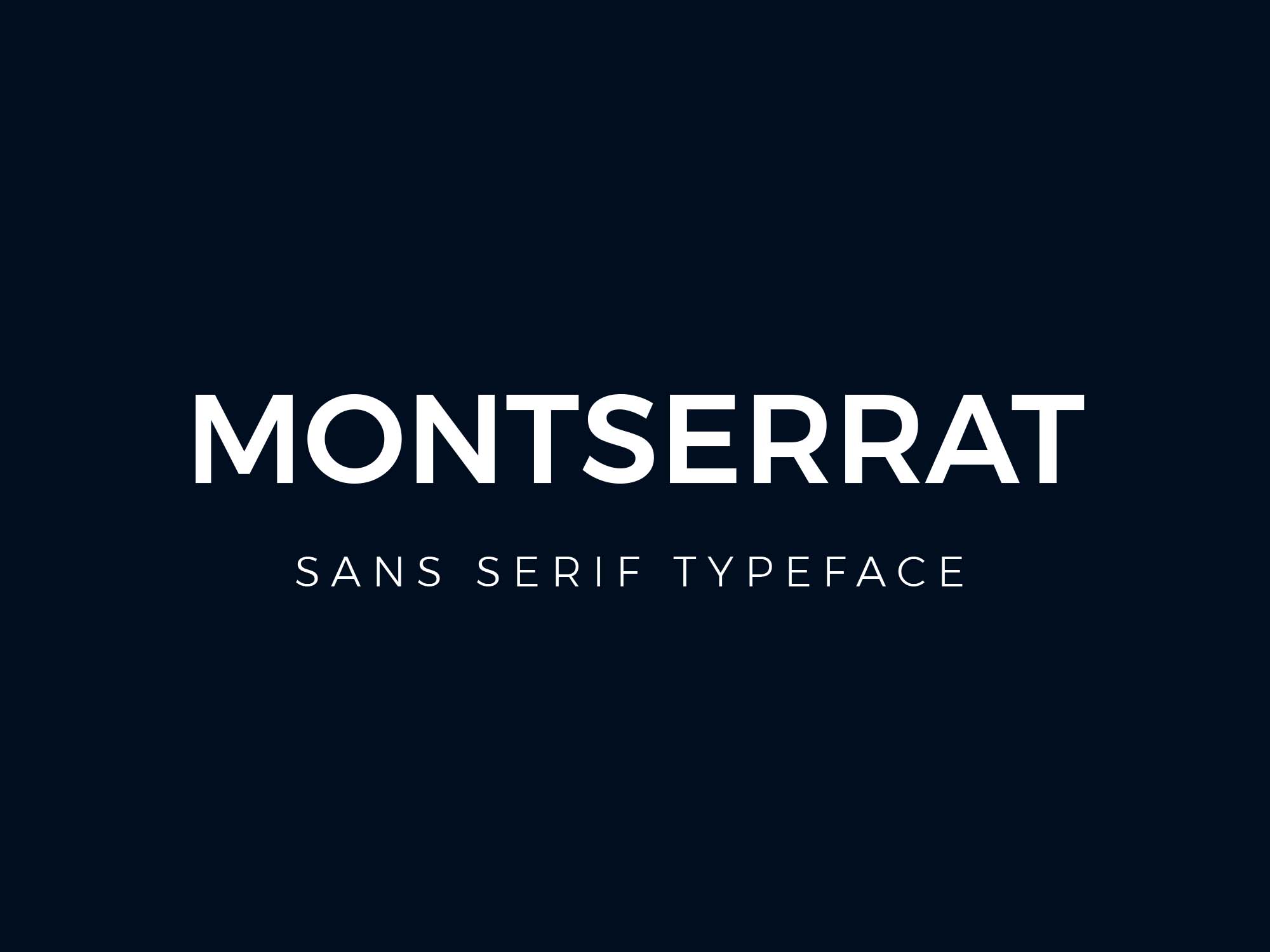
Let’s start with Montserrat. This classic typeface is the top choice to give your design a minimalist and elegant look. Its compact and slightly wide features make it look perfect as a header. Montserrat is a type of sans serif that is highly popular among web designers. So, you must try it!
2. Playfair Display
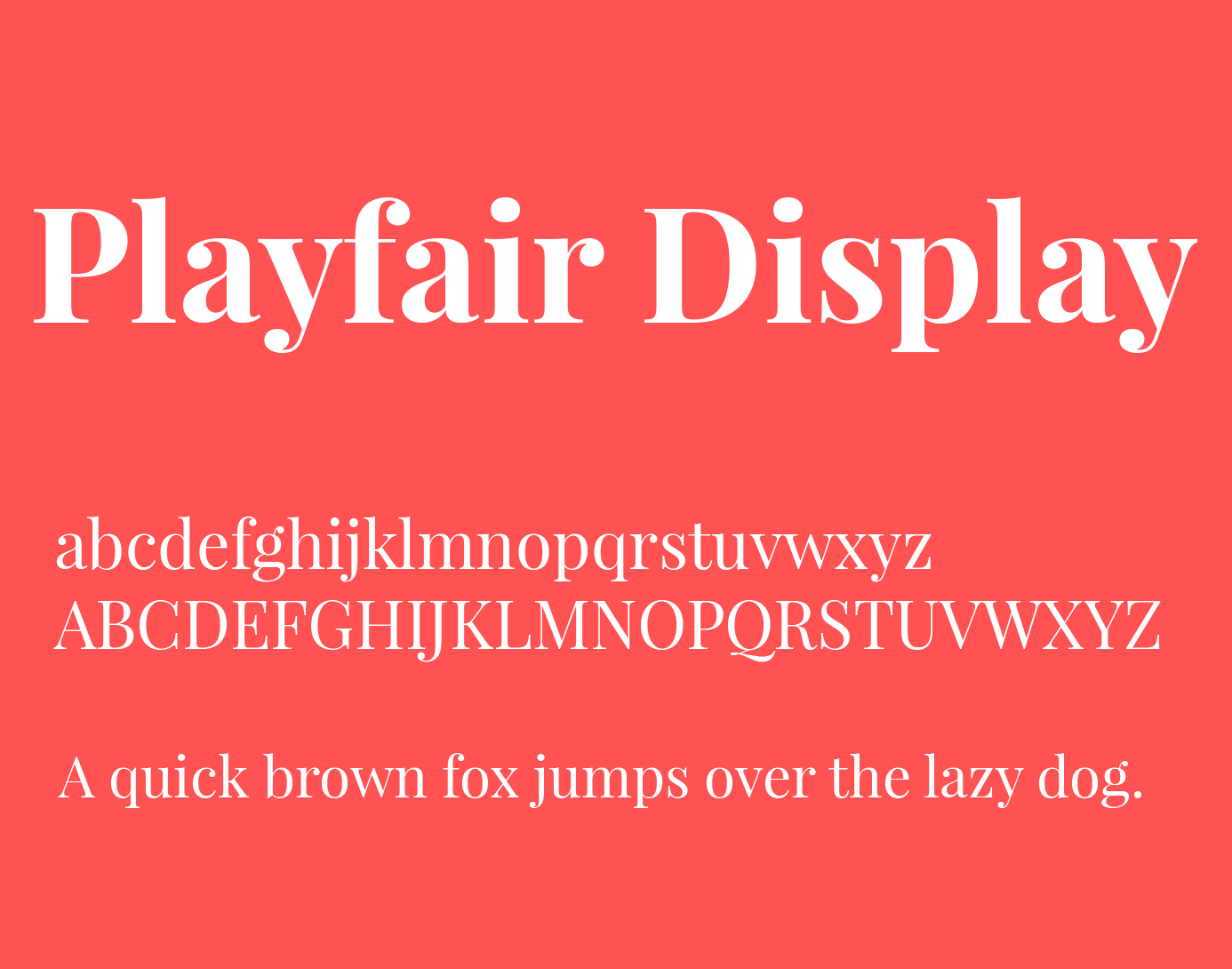
Another choice for font Canva formal you can use is Playfair Display. This classical typeface has a sense of modern and elegant touch. It comes in three weights and two styles, regular and bold. It will be great with other sans-serif fonts like Georgia, Montserrat, Buka Sans, and Robot.
3. Helvetica
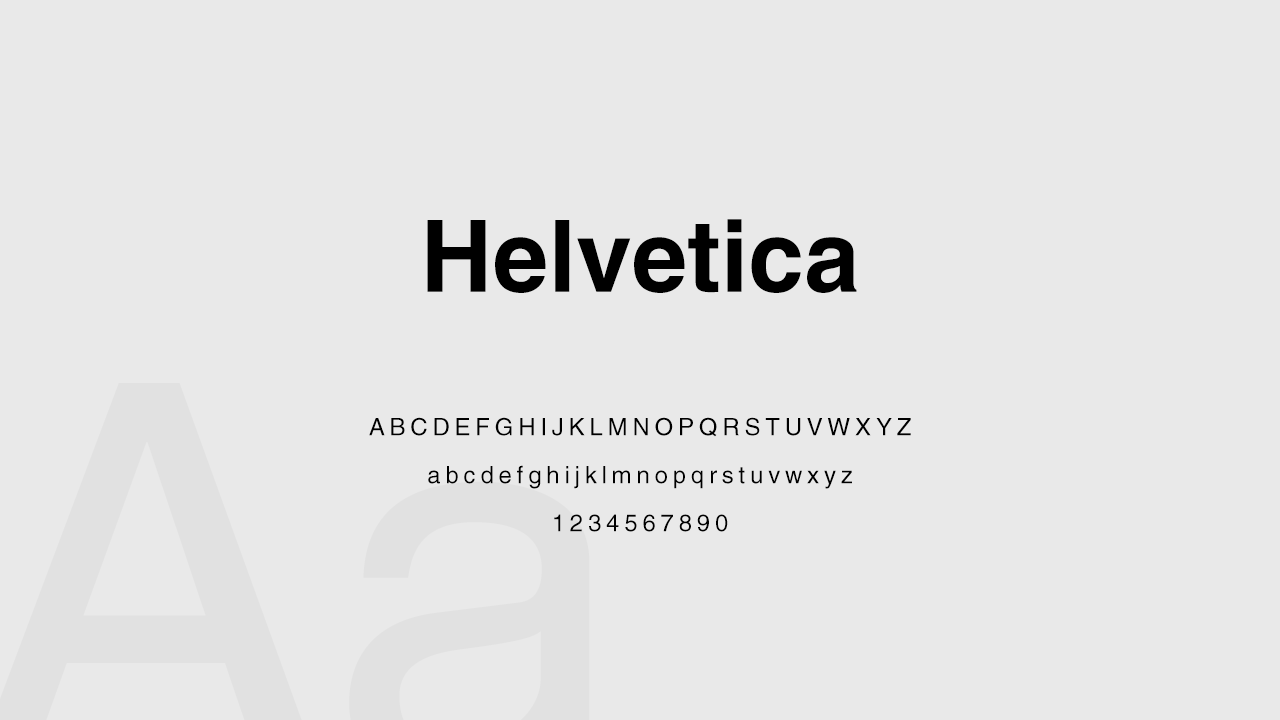
Thinking of giving a neutral look to your artwork? Helvetica could be the right choice for font Canva formal. This font is a sans-serif typeface.
It is an extremely clean font with a simple interface. No wonder designers highly favor this font. Some company logo branding uses this font, such as BMW, Microsoft, Motorola, Kawasaki, etc.
4. Josefin Sans
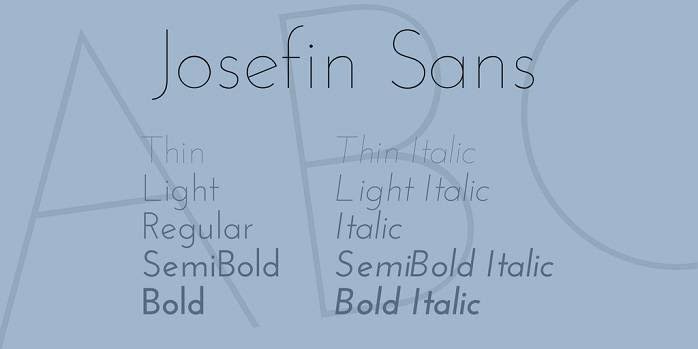
Spice up your design with Josefin Sans font. It’s a kind of vintage font that has distinctive typewriter-style elements. This font looks stunning as titling on posters or commercial ads.
5. Eczar
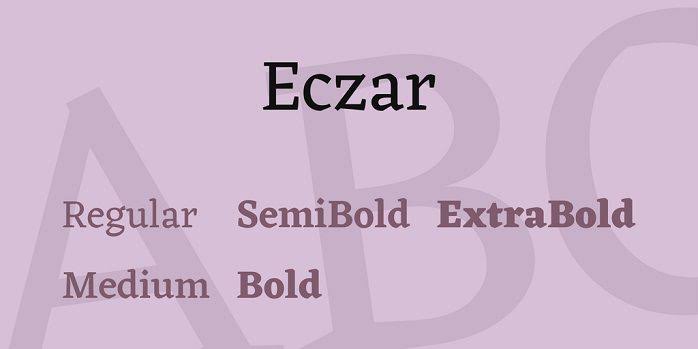
To create a design with a slightly edgier and more powerful, Eczar can help you out. This calligraphic typeface is an alternative for text that is charismatic and sharp at the same time. Use the extra bold to make engaging headlines for your art piece or the regular one for the body text.
6. Libre Baskerville
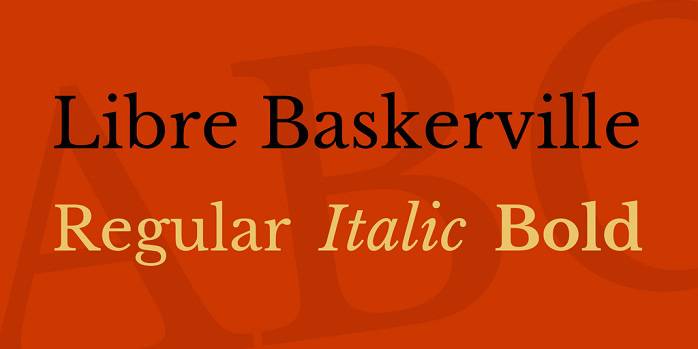
Libre Baskerville is an excellent option for a professional look. It has a decorative stroke at the end of the letter, adding elegant and beautiful personality to the text. Additionally, the wider structure is suitable for small letters.
7. Quicksand
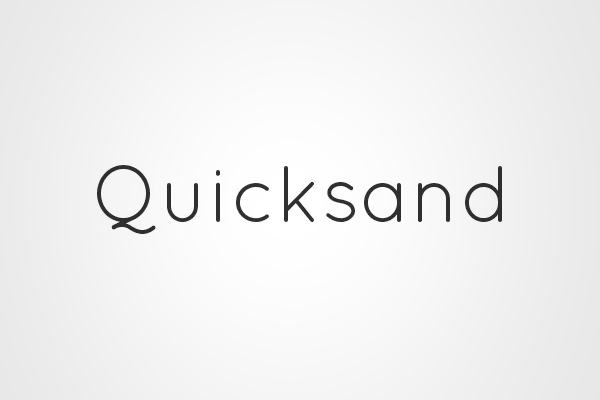
Again, the sans serif family is listed among the most popular font types in Canva. Yup, Quicksand has three weights with a sleek and minimalist style. This font is available in regular, light, and medium. It can inspire you to create a friendly appearance.
8. Roboto
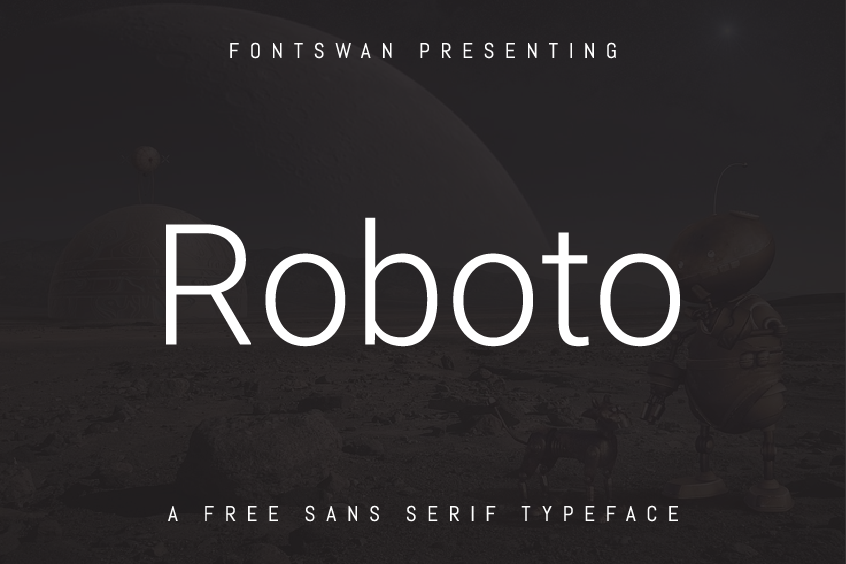
As you can see, Roboto has a geometric shape with a clean and sleek profile. This font features friendly and open curves for easy legibility. It’s suitable for body text and pairs well with serif typefaces. Several variants included regular, condensed, light, thin, slab regular, and slab thin.
9. Lovelo
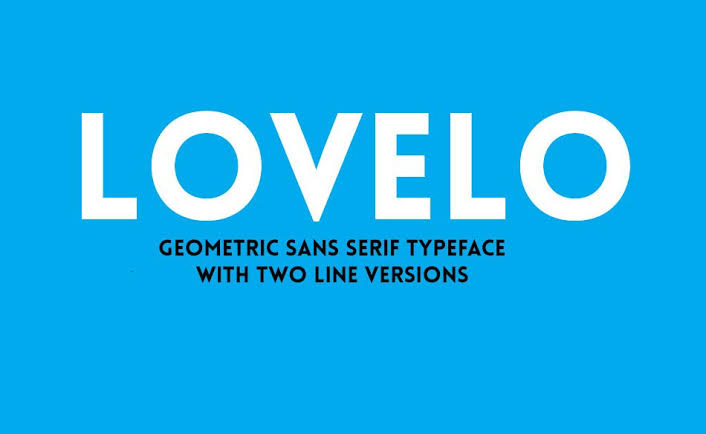
Experiment with geometric shapes in Lovelo for the project you’re working on. Lovelo is a sans-serif font that is super clean and modern. You’ll find two-line versions, line light and line bold, with different characteristics. Thus, this attractive font is genuinely perfect for headlines and titles.
10. Gistesy
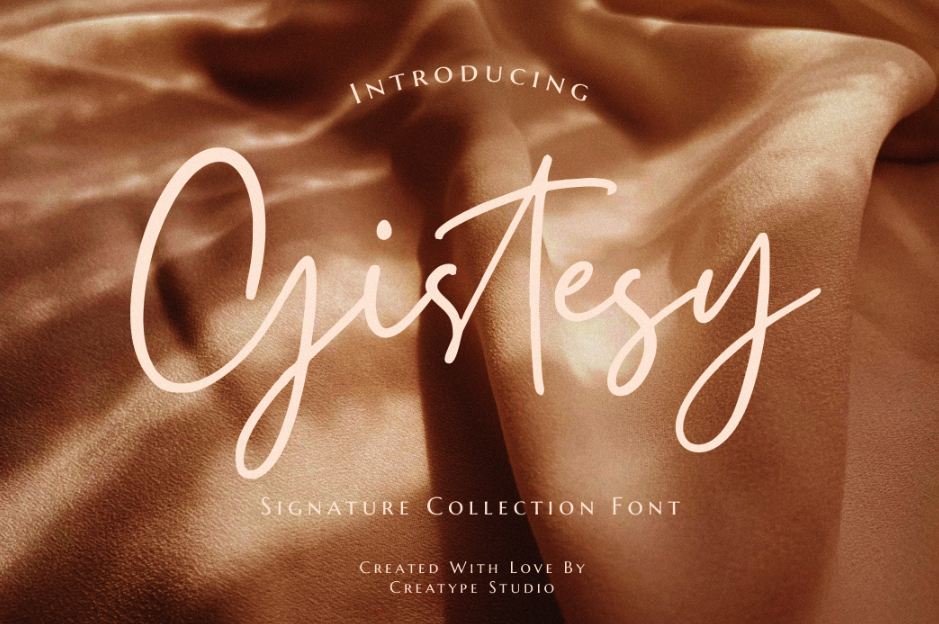
When styling your text, you can’t ignore Gistesy in your design. Gistesy is a lovely, beautiful, and classy handwritten font suitable for various projects, including formal tones. Use it for social media art cards or even magazine designs.
Font selection is the most important element to consider in creating a design. If your choice is right, the message in your work will be easily delivered to the reader. You can use the font Canva formal suggestions above as inspiration to create a strong sense of your creation.